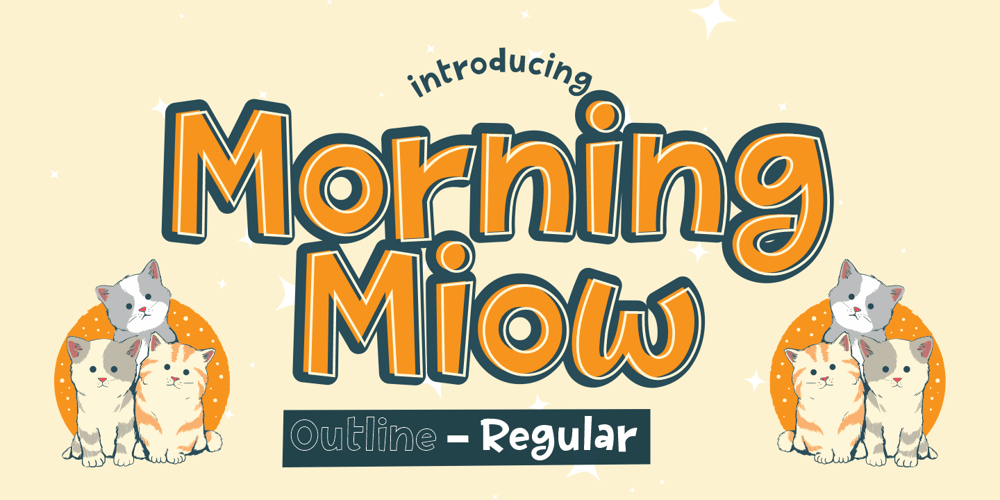
Morning Miow Font Family was designed by Joko Setiono and published by Arttype7. Morning Miow contains 2 styles and family package options. We want to introduce the newest product from us. which we named “Morning Meow.”Morning Meow comes with 2 weights. Regular Morning Meow and Morning Meow Outline. and accompanied by ligatures that will bring your design to life.This Morning Meow is perfect for craft designs, birthday greeting cards, t-shirts, movie titles, quotes, logos. and Silhouette crafts.